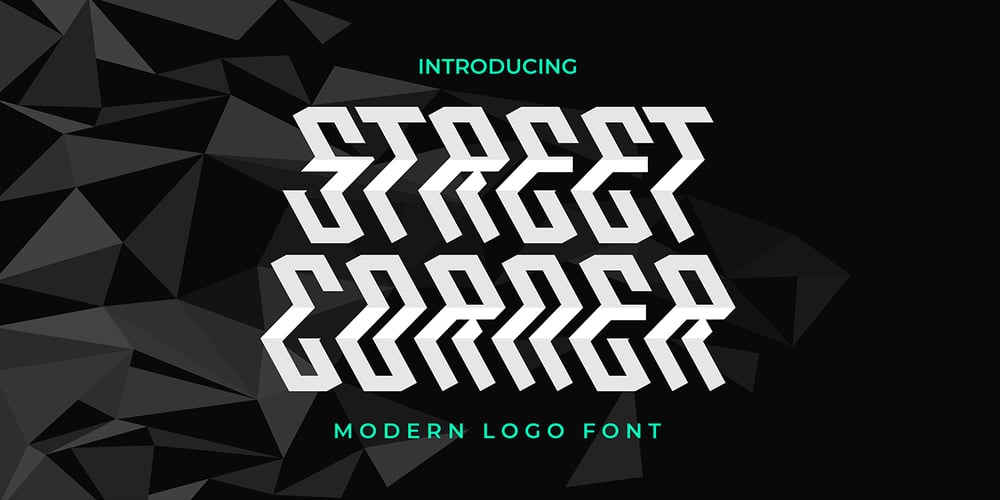
Street Corner Racing Font Family was designed by Sipanji and published by Sipanji21. Street Corner Racing contains 1 styles and family package options. “Street Corner” is a display font with a Racing and futuristic theme, perfect for design projects such as sports jerseys, athletic shoes, helmets, and other sports-related products. With its dynamic appearance, this font brings a sense of energy and movement to your designs. The clean lines and modern feel of “Street Corner” make it an excellent choice for projects that require a sleek and contemporary look. Whether you’re designing for a sports team or creating an athletic product, “Street Corner” will help you create a strong and memorable brand identity that embodies the spirit of sports and the future.